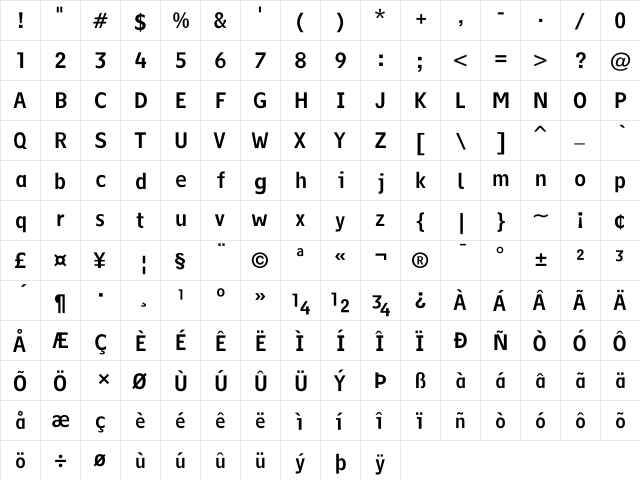
AFInterface Two
Design Context for AFInterface Typeface
AFInterface takes a measured approach to typography — its balanced proportions and neutral character make it a reliable workhorse for both digital and print work.